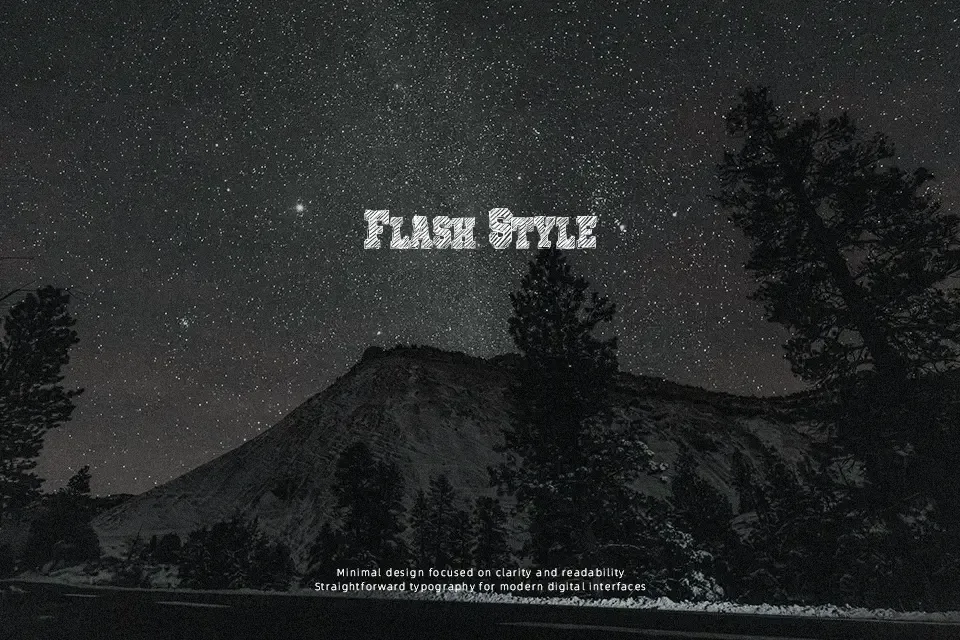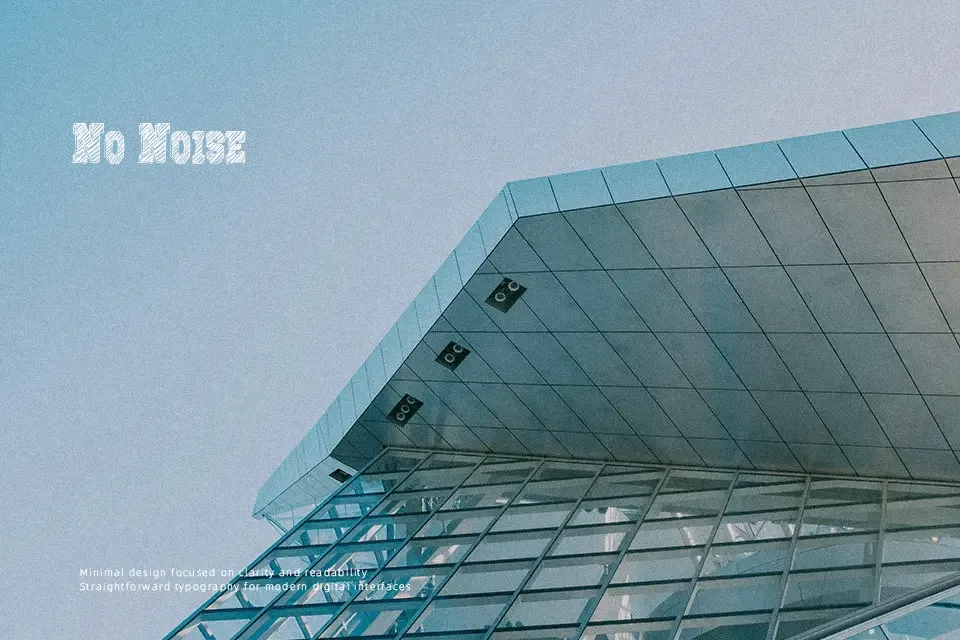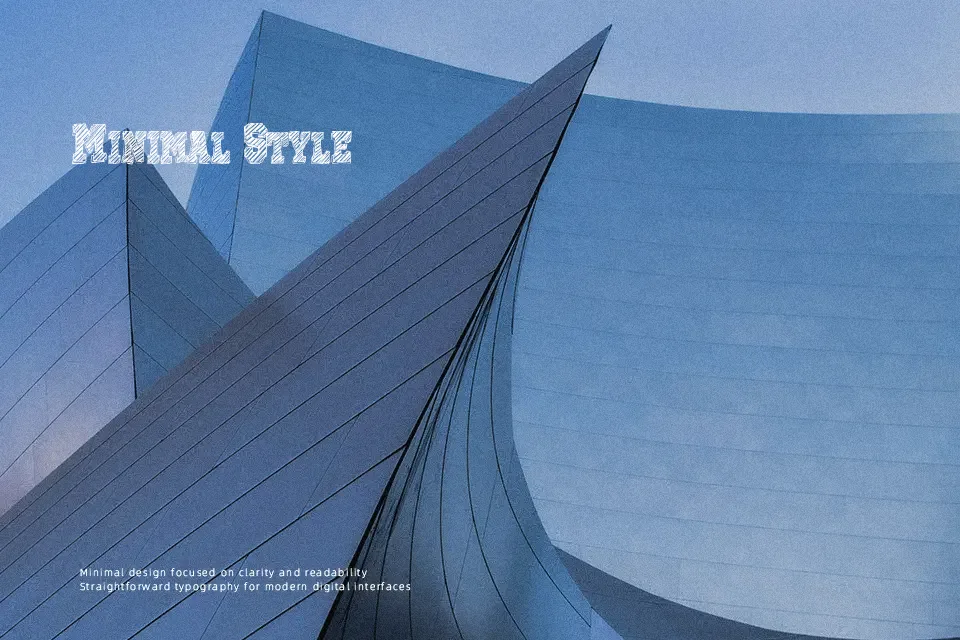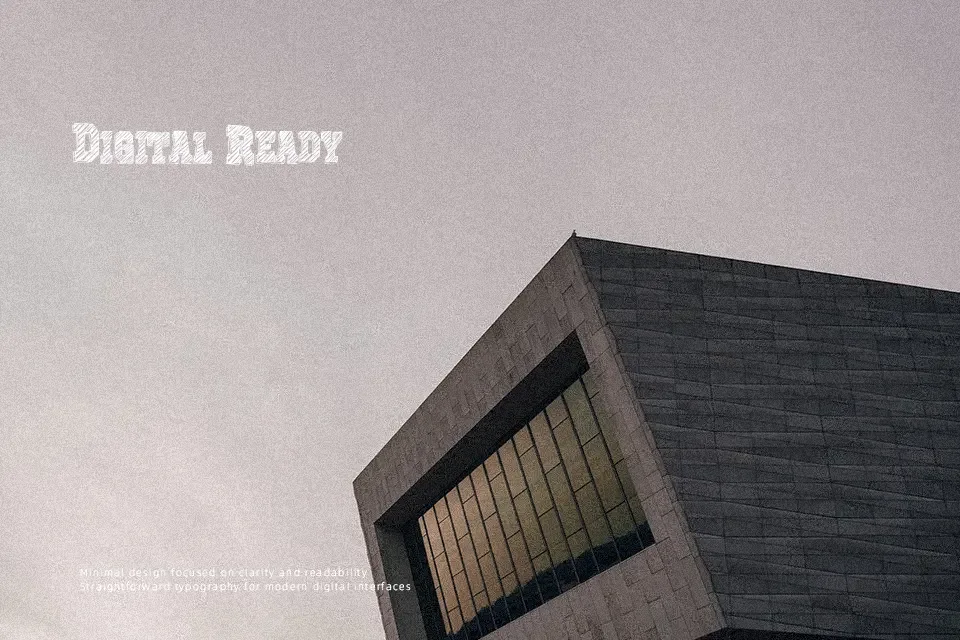
Prized Study Font
Prized Study Font delivers a striking collegiate presence through its heavy, structured letterforms and sharp, blocky terminals. The uniform stroke thickness and rigid geometric proportions give the typeface an assertive, athletic energy that stands out in large-scale applications. Its balanced but dense spacing helps maintain clarity in larger headlines and bold banner designs. However, the rigid forms and thick strokes reduce continuous reading comfort, making it less effective for extended paragraphs. This typeface performs best when displayed at larger sizes, where its vintage varsity aesthetic can truly anchor a design without overwhelming the surrounding visual elements.
vintage sports apparel
university varsity branding
athletic team logos
bold poster headlines
technical manuals
Perfect for fashion, headline, and poster, with a bold and display style.